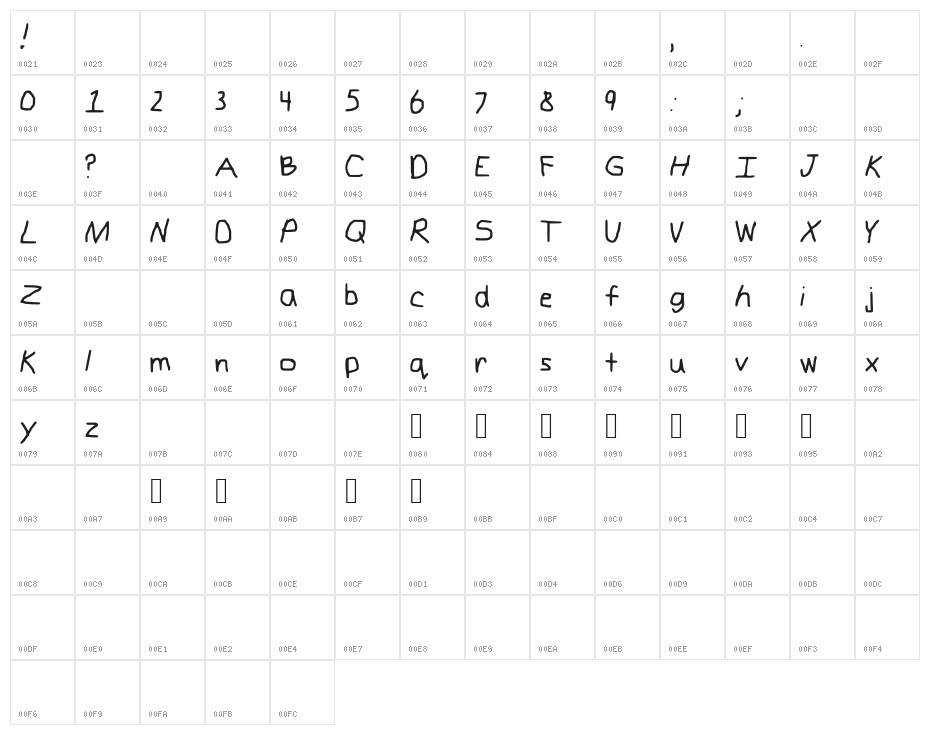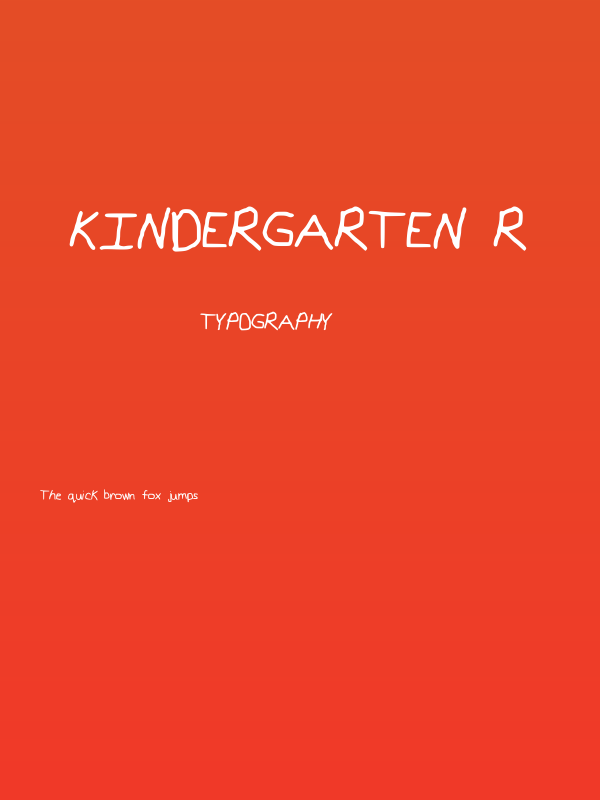
Kindergarten R Font
Kindergarten R Description
This playful and whimsical font captures the essence of a child's handwriting, characterized by its uneven strokes and casual, informal style. The letters are slightly irregular, giving it a hand-drawn appearance that is both charming and approachable. The uppercase and lowercase letters maintain a consistent style, with rounded edges and a slight tilt, enhancing its playful nature. The numerals and special characters follow the same design principles, ensuring a cohesive look throughout. This font is perfect for projects that require a friendly and informal touch, appealing to audiences of all ages.
| Overall Style | Playful, Informal |
| Proposed Projects | Ideal for children's books, educational materials, playful branding, and informal invitations. |